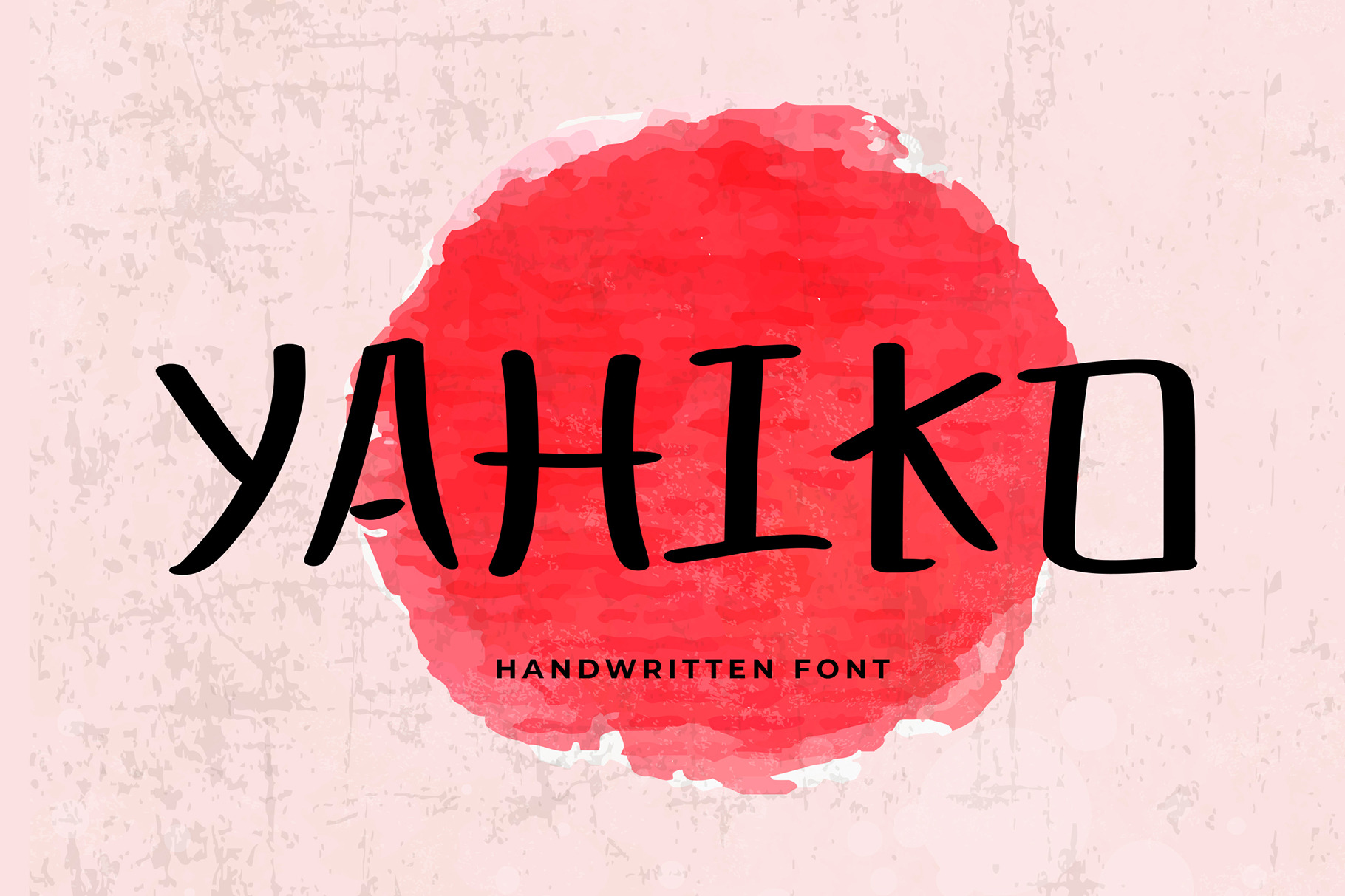
Yahiko Playful Handwritten Font
Yahiko is playful modern handwritten font. This font perfect for branding projects, logo, book cover design, tshirt designs, social media posts, advertisements, product packaging, product designs, label, watermark, invitation, stationery and any projects